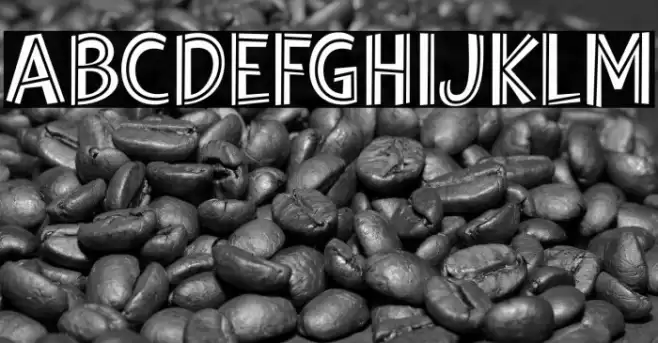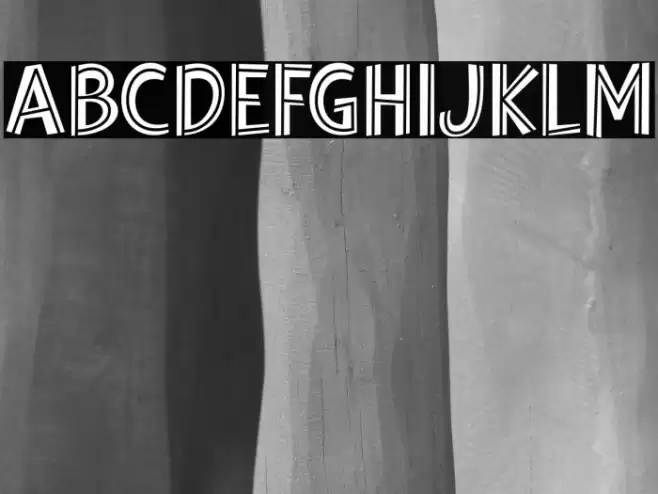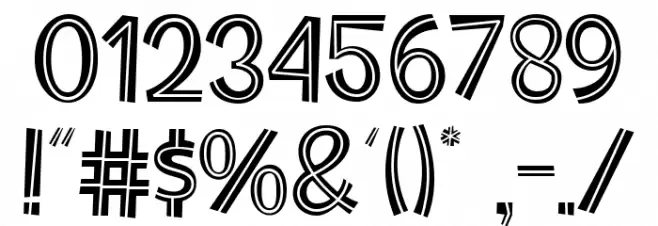
Hot Dog Font
Hot Dog Description
This font features a bold, playful design with a distinct retro vibe. The characters are outlined with a double line effect, giving them a three-dimensional appearance. The uppercase and lowercase letters maintain a consistent style, with angular edges and a slight slant that adds dynamism. The numbers and special characters follow the same design principles, ensuring uniformity across the font. Its unique style makes it stand out, perfect for eye-catching designs.
A bold, retro font with a double line effect and angular edges from Uncategorized fonts.
- Font: Hot Dog
- Proposed Projects: Ideal for vintage-themed posters, playful branding, and eye-catching headlines.
- Overall Style: Retro, Playful
- Use Case: Headlines, Posters, Branding